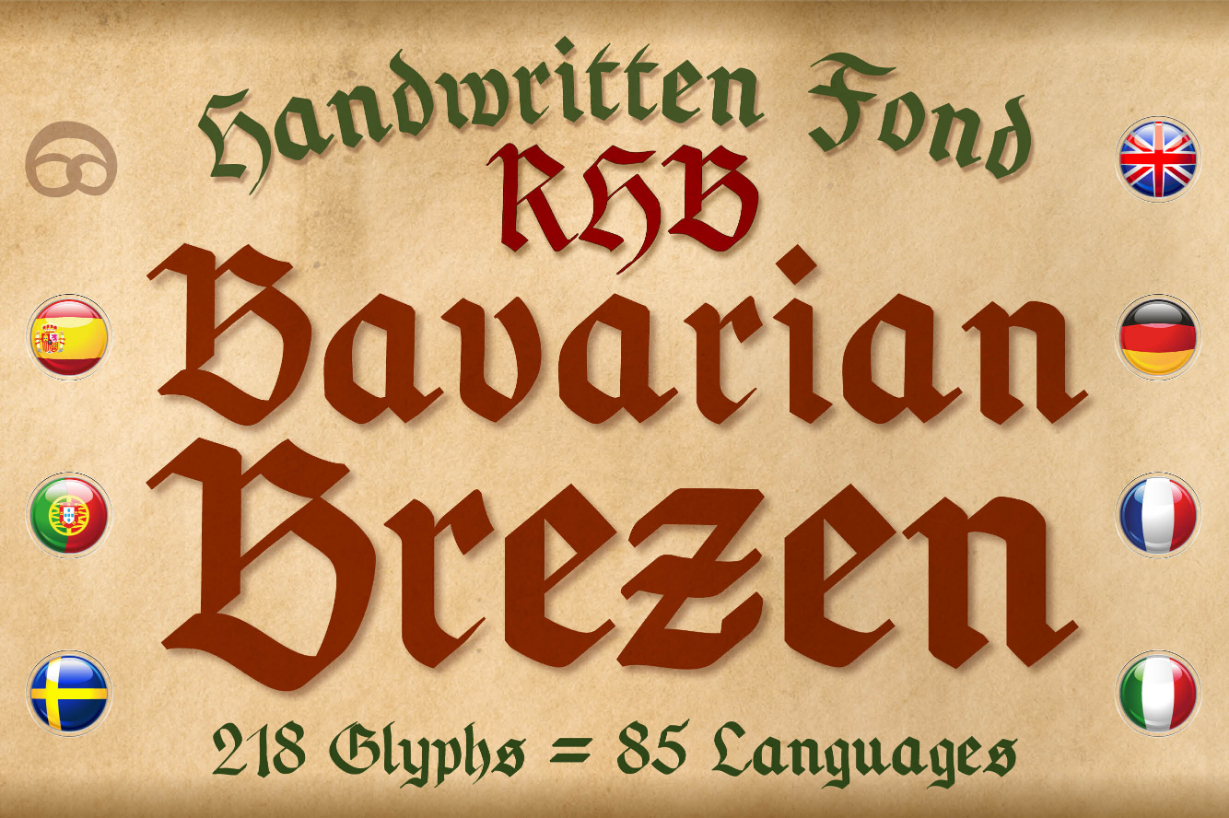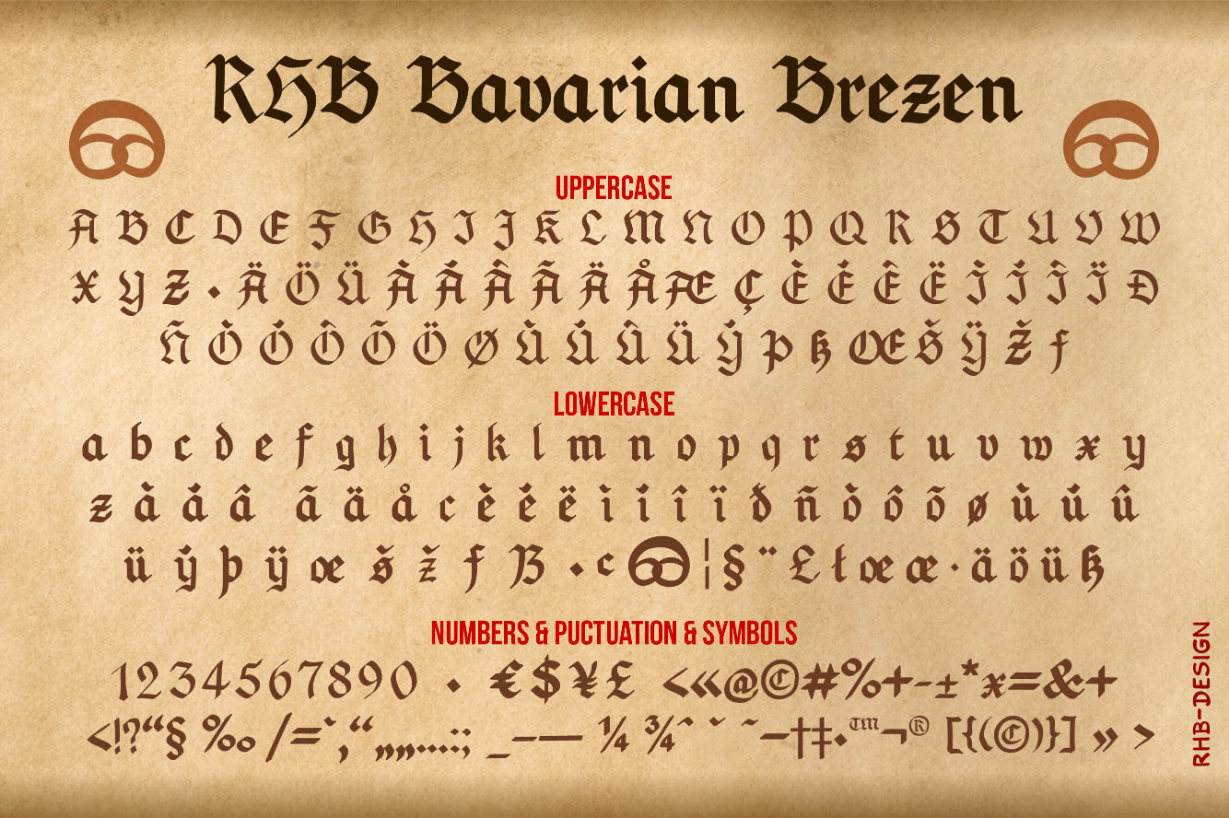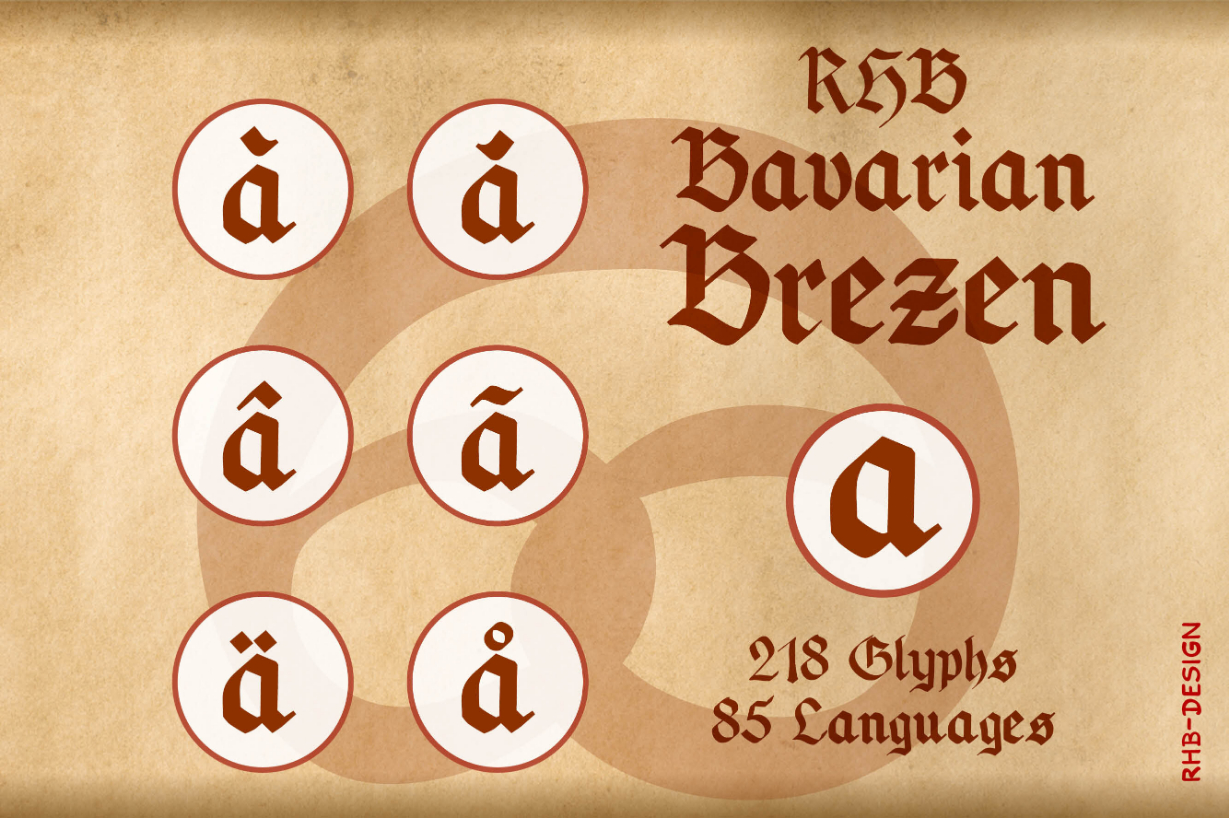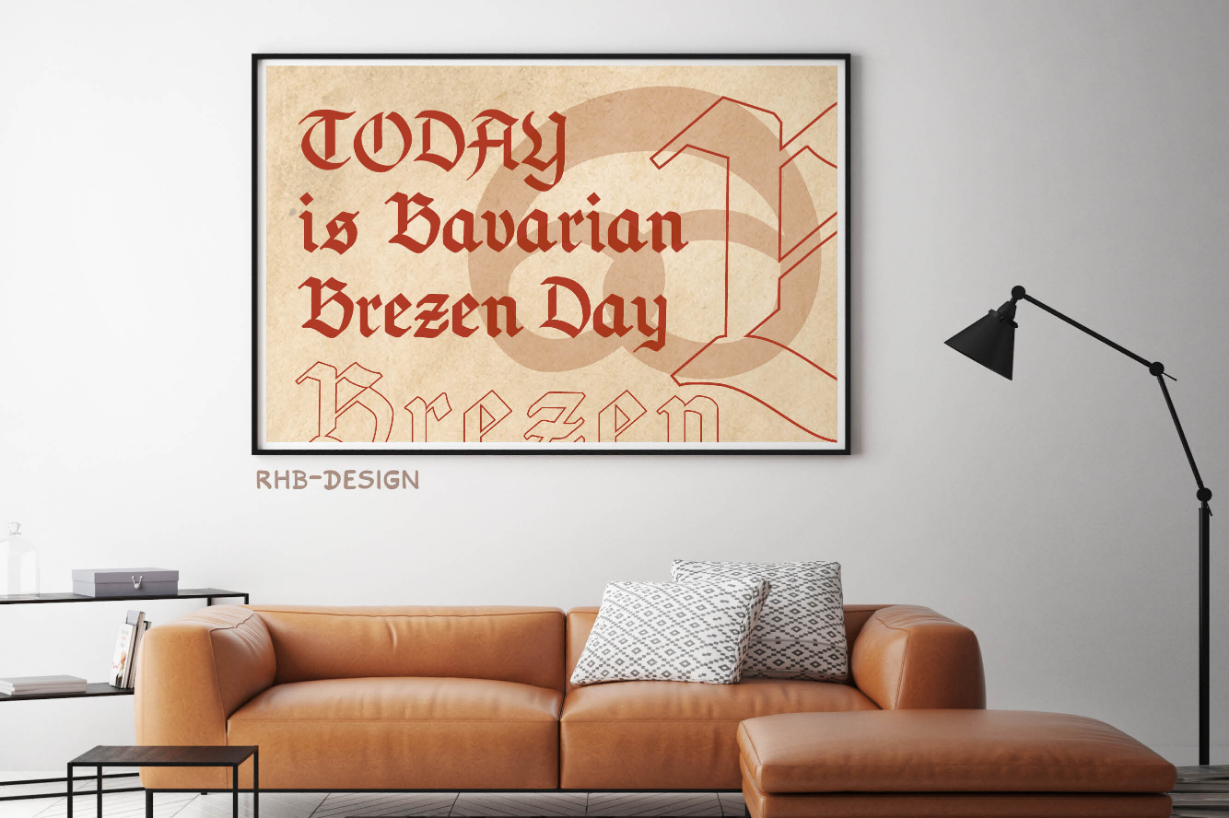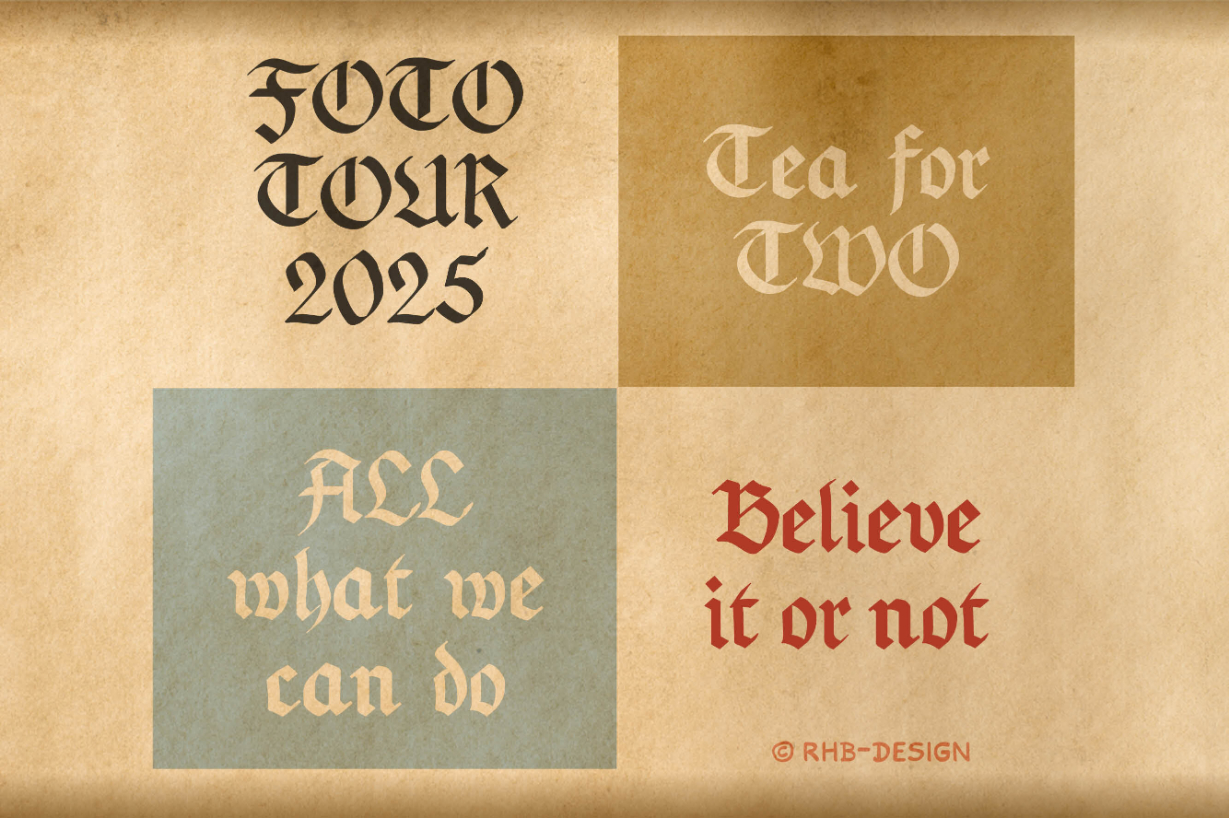
About Bavarian Brezen Font
“RHB Bavarian Brezen” is a font modeled on the old German Fraktur script. It is made by hand on the iPad with the Apple Pencil. It is very suitable for Bavarian topics, for example, everything about the Oktoberfest in Munich. However, It is also a good choice for certificates, jousting games, and medieval themes. It can be used multilingually for all Romance-based languages, there should be around 85 languages.
„RHB Bavarian Brezen” ist eine der altdeutschen Frakturschrift nachempfundene Schrift. Ich habe sie auf dem iPad mit dem Appel Pencil liebevoll und detailreich in Handarbeit gezeichnet. Sie ist sehr gut geeignet für bayerische Themen, zum Beispiel alles rund um das Oktoberfest in München. Jedoch ist sie auch eine gute Wahl für Urkunden, Ritterspiele und mittelalterliche Themen. Sie ist multilingual einsetzbar für alle romanisch basierten Sprachen, es sollten ca. 85 Sprachen sein.